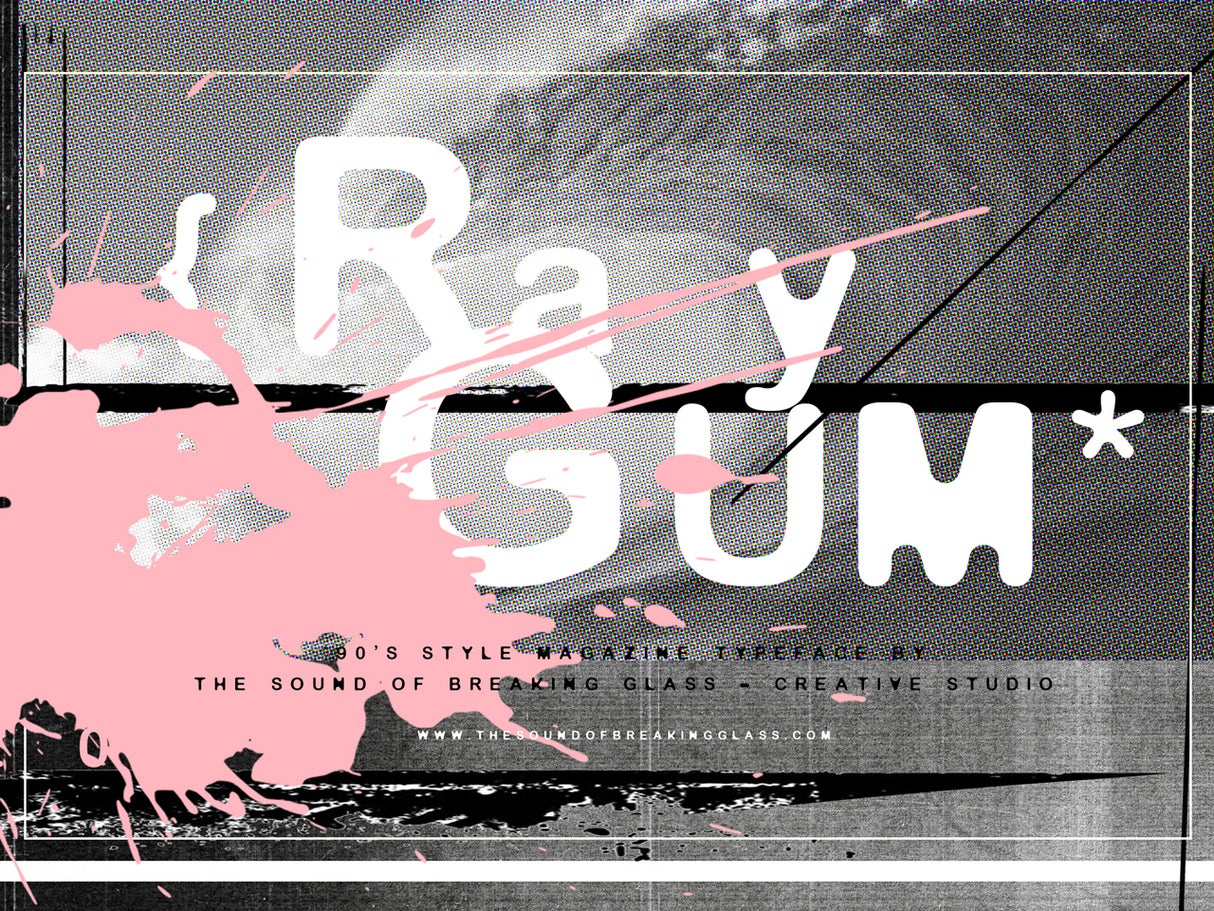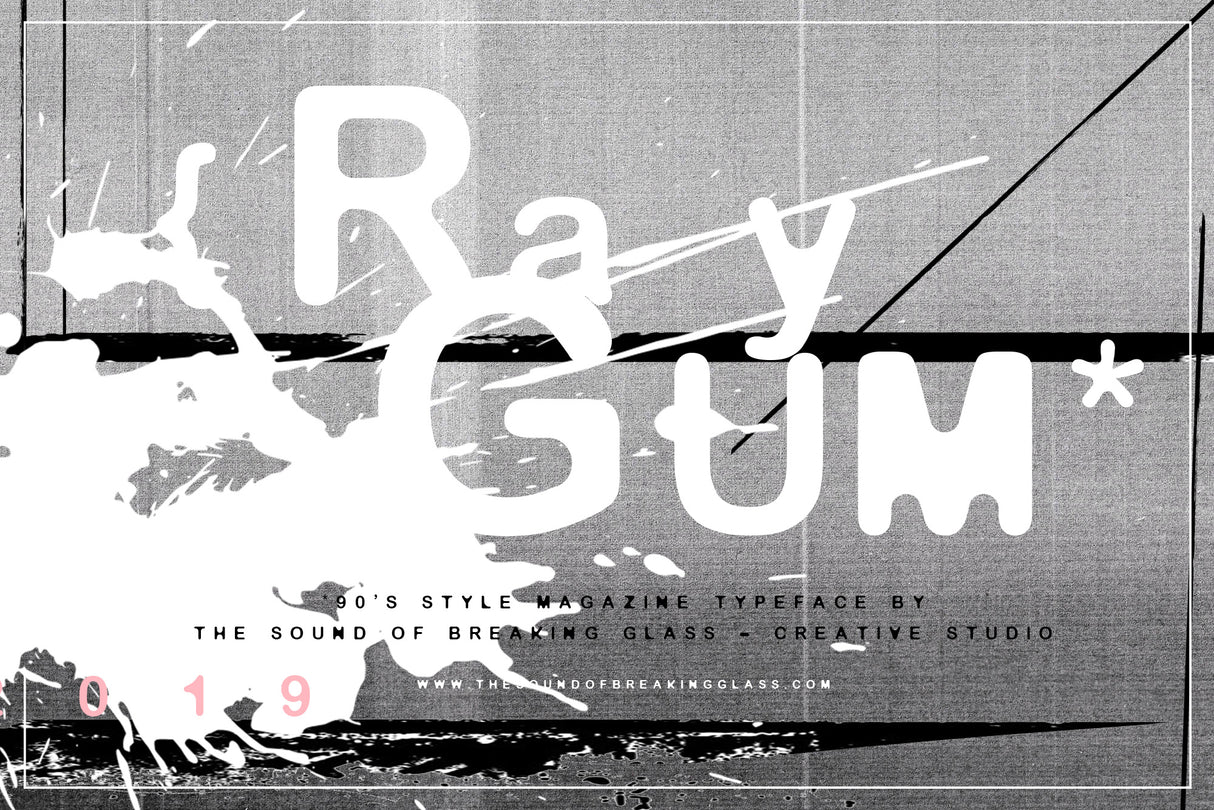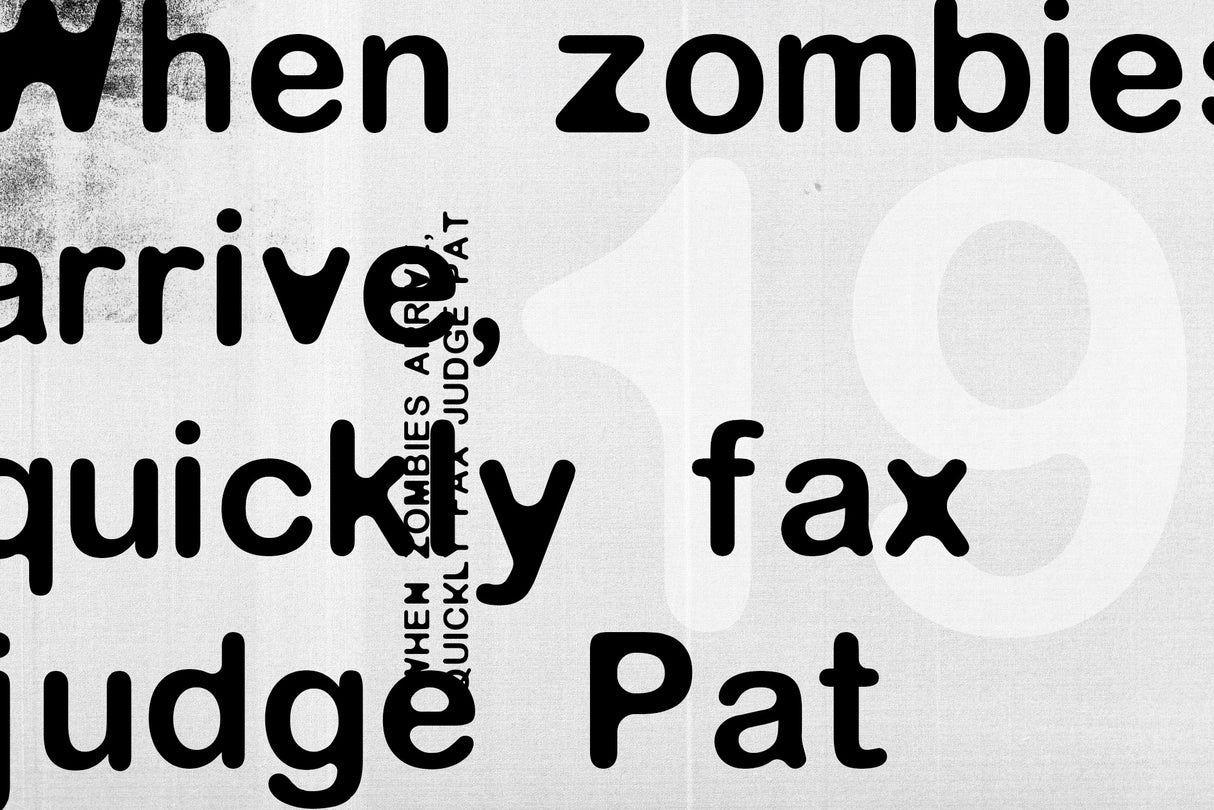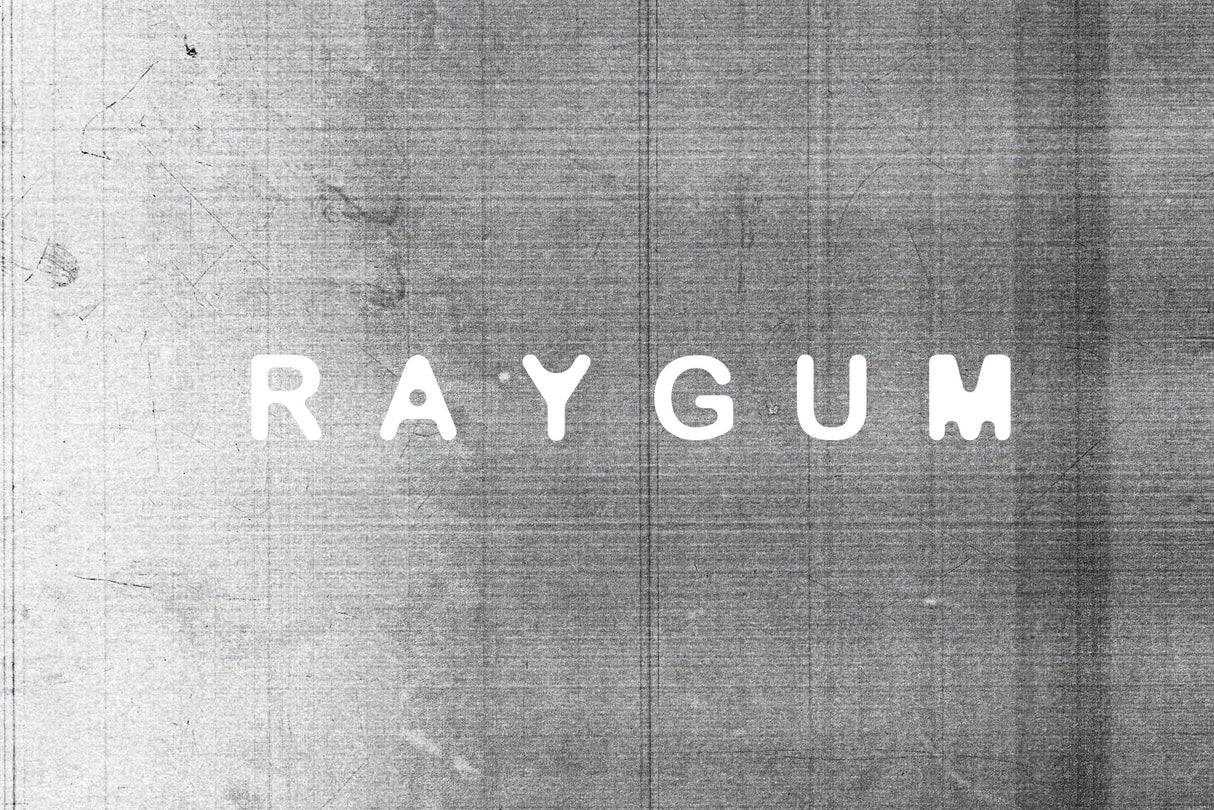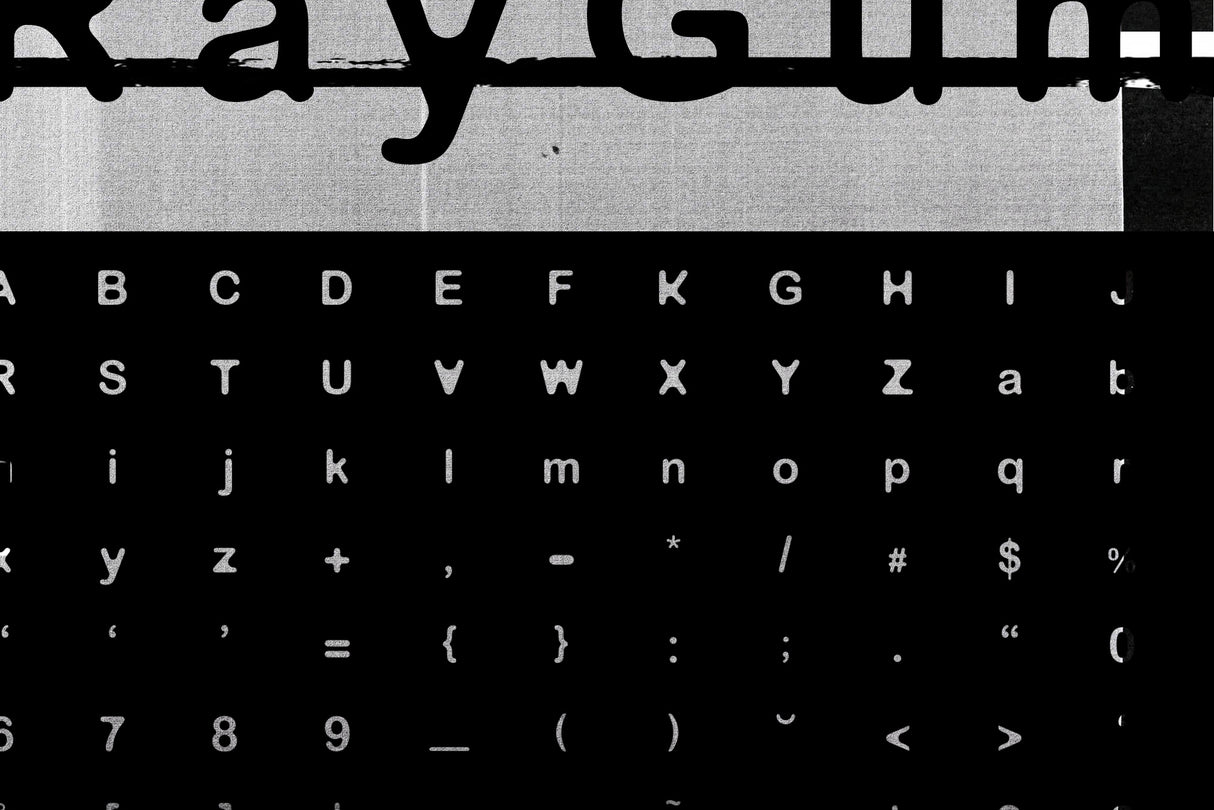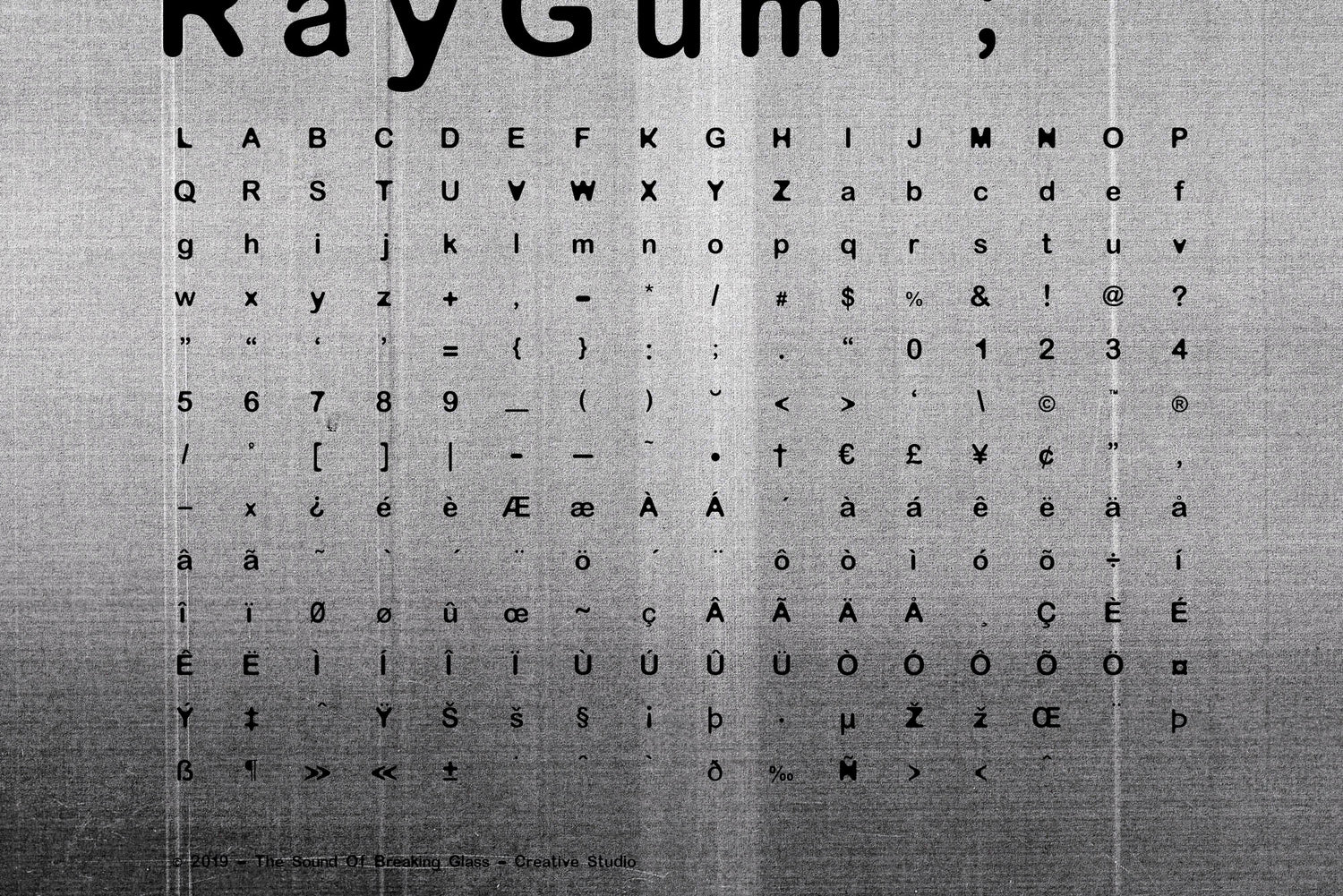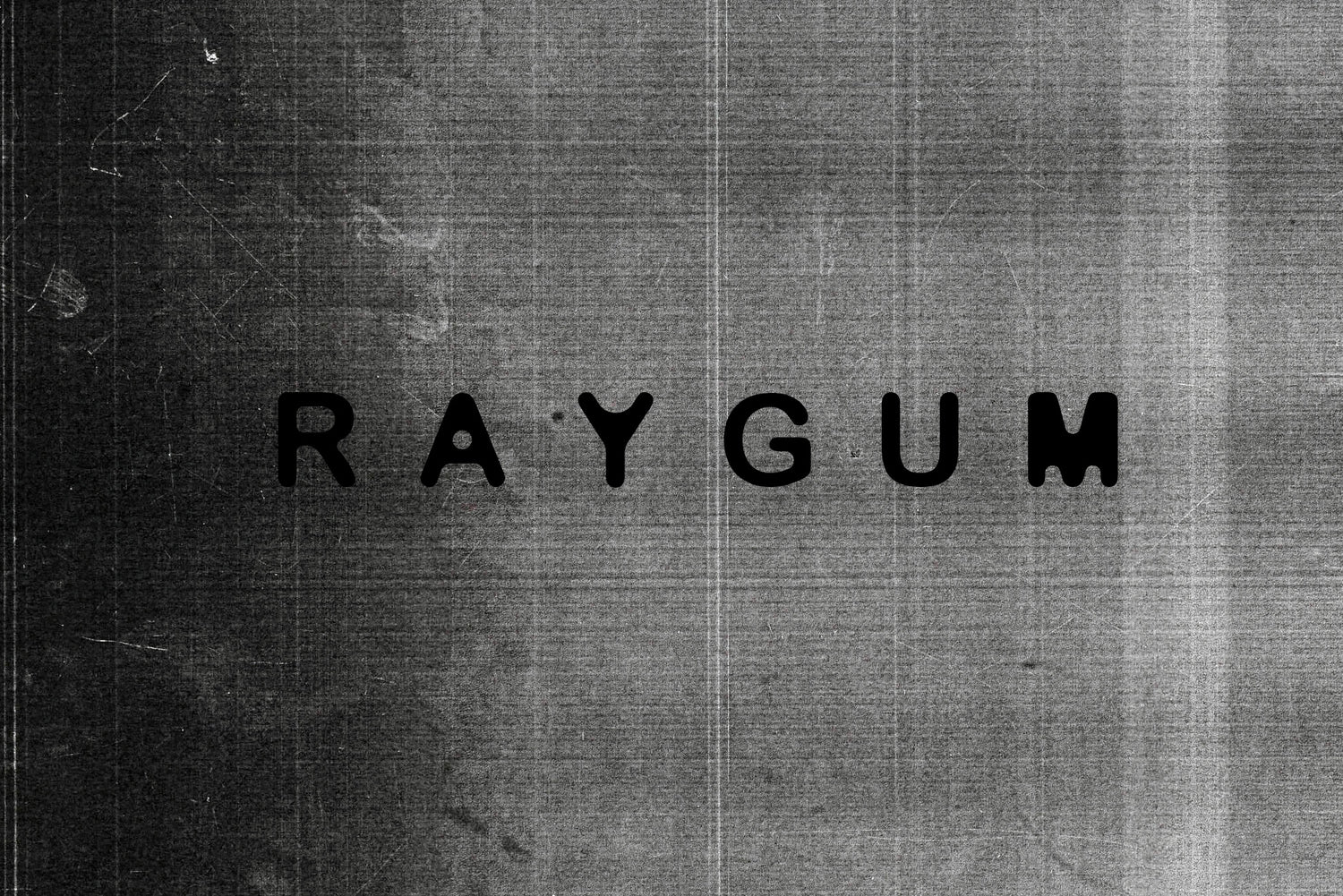
RayGum | Font
RayGum - FONT (TYPEFACE)
This original font design by T/S/O/B/G is a 90's inspired sans serif font perfect for disruptive typesetting of magazines, brochures, business cards and use in a variety of print and web applications.
Font Contains 210+ Ligatures
Great for magazines, brochures, print zines and professional graphic design projects.